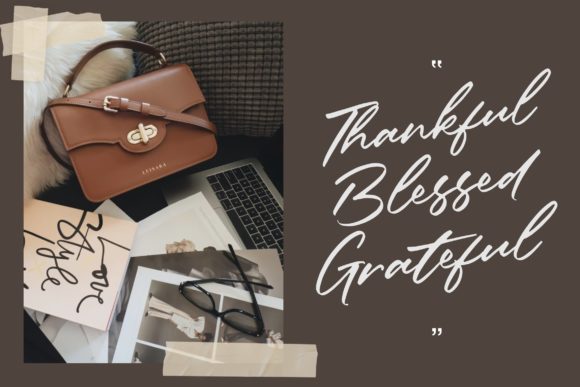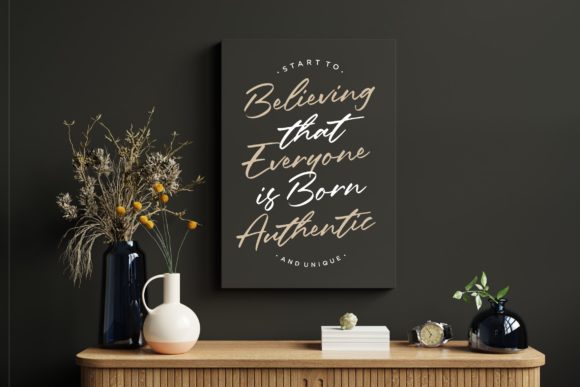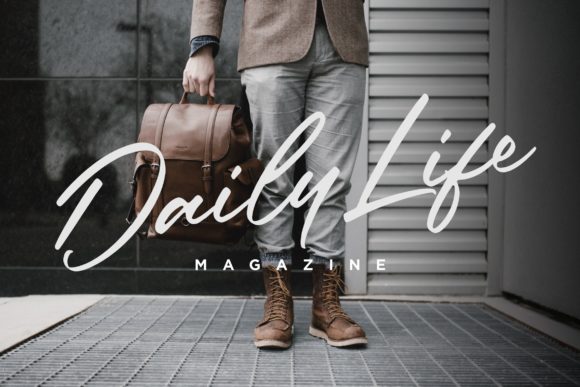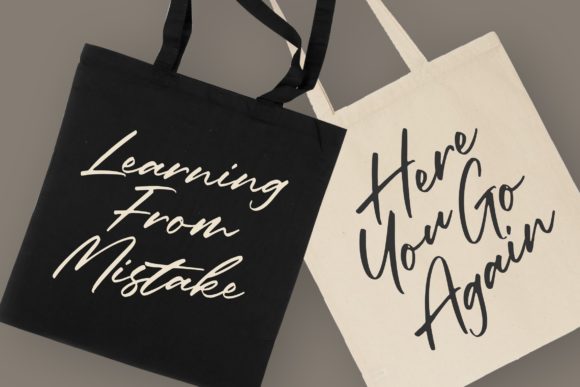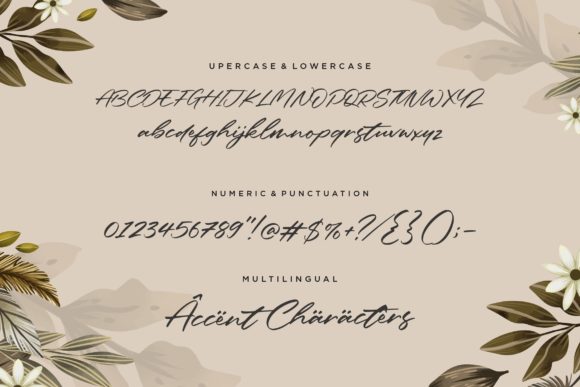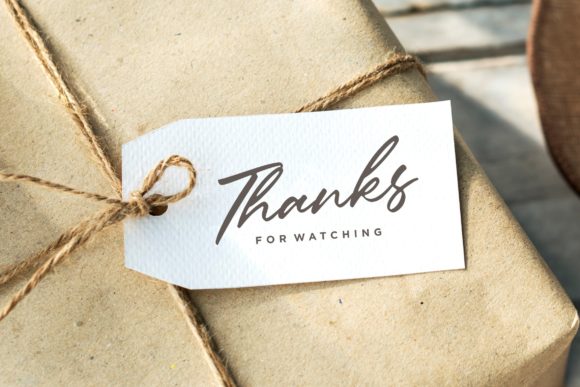
Introduction to Galaksie Font
Have you ever stared at a blank page, waiting for inspiration to strike, only to have a single word or phrase spark an entire creative project? For designers, those moments of clarity are what make the craft so rewarding. One such spark is the introduction of the Galaksie Font, a stylish script font that adds a touch of elegance to any design.
With its contemporary atmosphere and impeccable form, the Galaksie Font is a valuable resource for designers seeking to elevate their creative projects. Whether you’re working on a logo, brochure, or website, this high-quality font is sure to make a lasting impression. Plus, with a free download available, designers can access this versatile font without breaking the bank.
So, what sets the Galaksie Font apart from other design resources? Its unique balance of style and substance, coupled with a transparent background that allows it to blend seamlessly into any design.
Key Features of Galaksie Font
- High-quality design resource ideal for creative projects, with a unique and futuristic aesthetic.
- Includes a transparent background, allowing for seamless integration into any design project.
- Designed at a high resolution of 300 DPI, ensuring crisp and clear typography.
- Perfect for use in graphic design, digital art, and other creative projects where a unique and eye-catching font is desired.
Honest Review: Galaksie Font
I recently stumbled upon the Galaksie Font, and I’m excited to share my thoughts on this design resource. As a designer, I’m always on the lookout for high-quality fonts that can elevate my creative projects. The Galaksie Font did not disappoint.
Here are some things that work well: ✨
- Unique and creative design: The Galaksie Font has a distinctive style that sets it apart from other fonts in its class.
- High-quality vectors: The font files are well-crafted and easy to work with, making it a great addition to any design project.
- Transparent background: The font’s transparent background makes it easy to use on any design background, giving you more flexibility in your creative projects.
While the Galaksie Font is a great resource, there are a few limitations to keep in mind: ⚠️
- Limited character set: The font’s character set is relatively small, which may not be suitable for longer texts or documents.
- Not suitable for body text: The font’s unique style may not be the best choice for body text, but it’s perfect for headings and titles.
Overall, I’m impressed with the Galaksie Font. It’s a great addition to any designer’s toolkit, and it’s free to download. If you’re looking for a high-quality font to add some creativity to your design projects, the Galaksie Font is definitely worth checking out.
Common Use Cases for Galaksie Font
The Galaksie Font is perfect for a variety of creative projects, including:
- Graphic designs and posters.
The Galaksie Font is designed at a high resolution, ensuring that it looks crisp and clear on a variety of devices and screen sizes. With a resolution of 300 DPI, this font is perfect for use in print and digital designs, from business cards to website headers.
Does the Galaksie Font have a transparent background?
Yes, the Galaksie Font has a transparent background, making it easy to use in designs that require a seamless integration with other elements. This feature also allows designers to create stunning effects and textures by layering the font over other design elements.